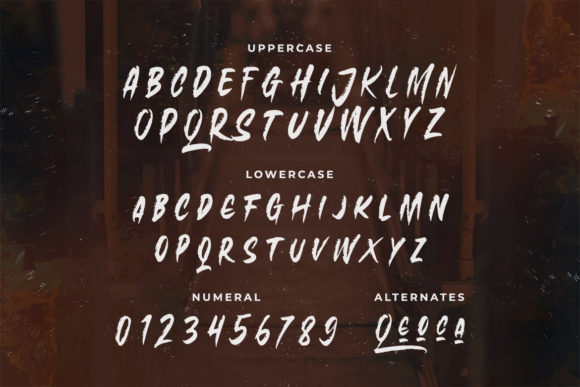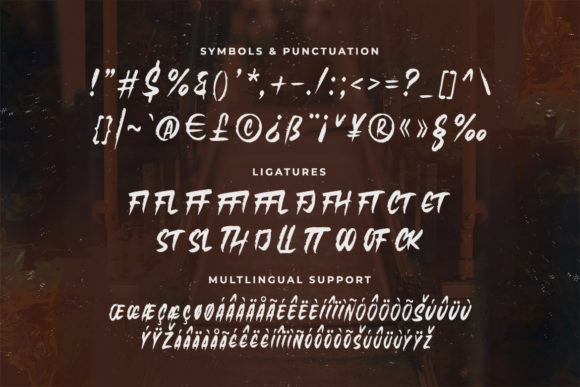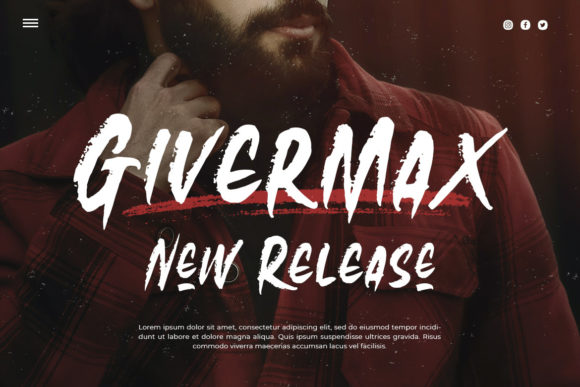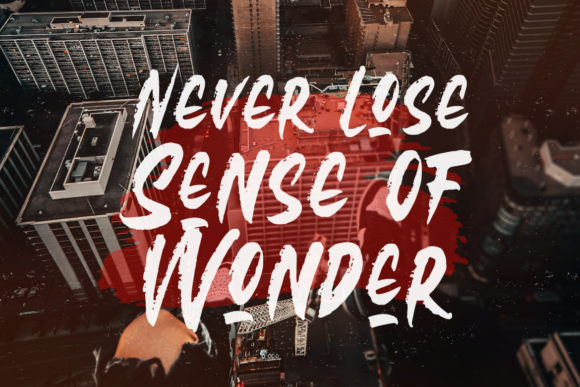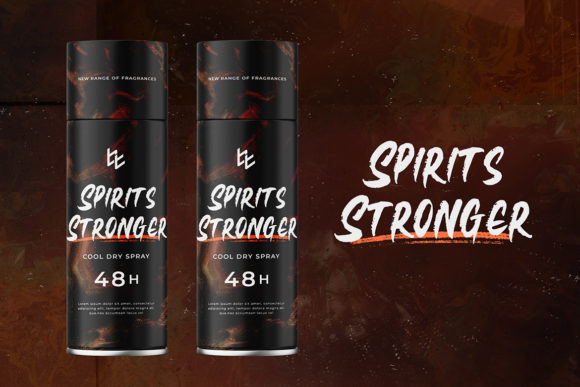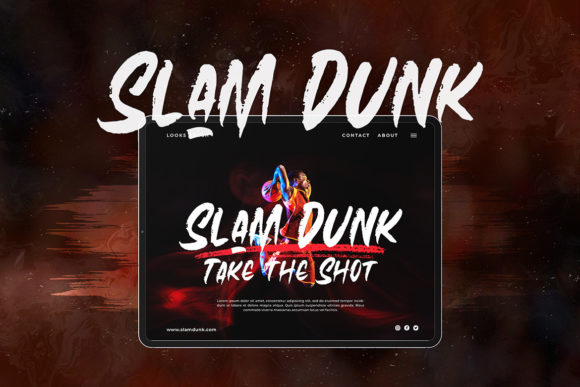
Introduction to Looks Brush Font
Have you ever been working on a creative project, pouring your heart and soul into it, only to realize that the perfect font is missing? This is a moment we’ve all been there, staring at our screens, scrolling through design resources, searching for that one font that will elevate our work to the next level.
Well, search no more! We’re excited to introduce you to the Looks Brush Font, a modern hand-brush display font that’s sure to become your go-to design companion. With its unique, hand-crafted look, this font is perfectly suited for brands, quotes, album covers, art, lifestyle designs, logos, titles, magazines, and so much more.
Whether you’re a seasoned designer or just starting out, the Looks Brush Font is a valuable addition to your design toolbox. With a transparent background and high-quality design, you can trust that your creative projects will shine with this beautiful font.
Key Features of Looks Brush Font
- High-quality, hand-drawn design resource ideal for creative projects requiring a unique touch.
- Features a transparent background, providing maximum flexibility for designers working on complex compositions.
- Designed to be scalable, maintaining its integrity at resolutions up to 300 DPI.
- Looks Brush Font is a versatile tool, suitable for a wide range of creative projects, from branding and advertising to editorial and publishing.
- Includes a comprehensive set of characters, including uppercase and lowercase letters, numbers, and punctuation marks.
Honest Review: Looks Brush Font
As a designer, I’m always on the lookout for new design resources to enhance my creative projects. The Looks Brush Font caught my eye with its unique, handwritten style and free download option.
What works well: ✨ The font’s high quality and versatility make it perfect for a wide range of applications, from branding and advertising to digital products and editorial content. The transparent background allows for seamless integration into any design, and the font’s flexibility makes it easy to customize and manipulate.
- High-quality design with a unique, handwritten style
- Flexibility for customization and manipulation
However, there are some limitations: ⚠️ The font may not be suitable for projects that require a more formal or traditional tone, as its casual, handwritten style may detract from the overall message.
Overall, I’m impressed with the Looks Brush Font’s potential and versatility. While it may not be the best fit for every project, it’s definitely a valuable addition to any designer’s toolkit.
Looks Brush Font
Tips for Getting the Most Out of Looks Brush Font
To get the most out of the Looks Brush Font, try using it in combination with other design elements, such as bold lines and bright colors. You can also experiment with different font sizes and styles to create a unique look.
Common Use Cases for Looks Brush Font
The Looks Brush Font is perfect for creative projects that require a unique, hand-drawn look. Some common use cases include graphic design, logo creation, and social media graphics.